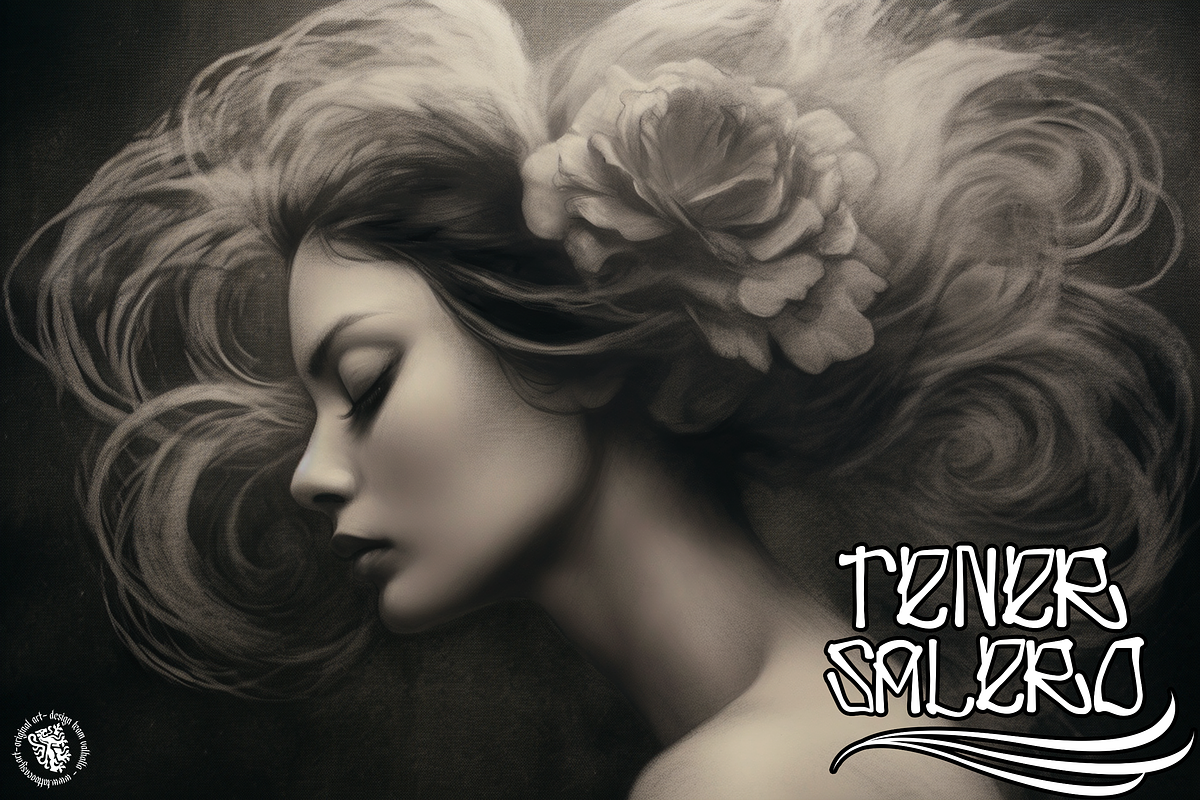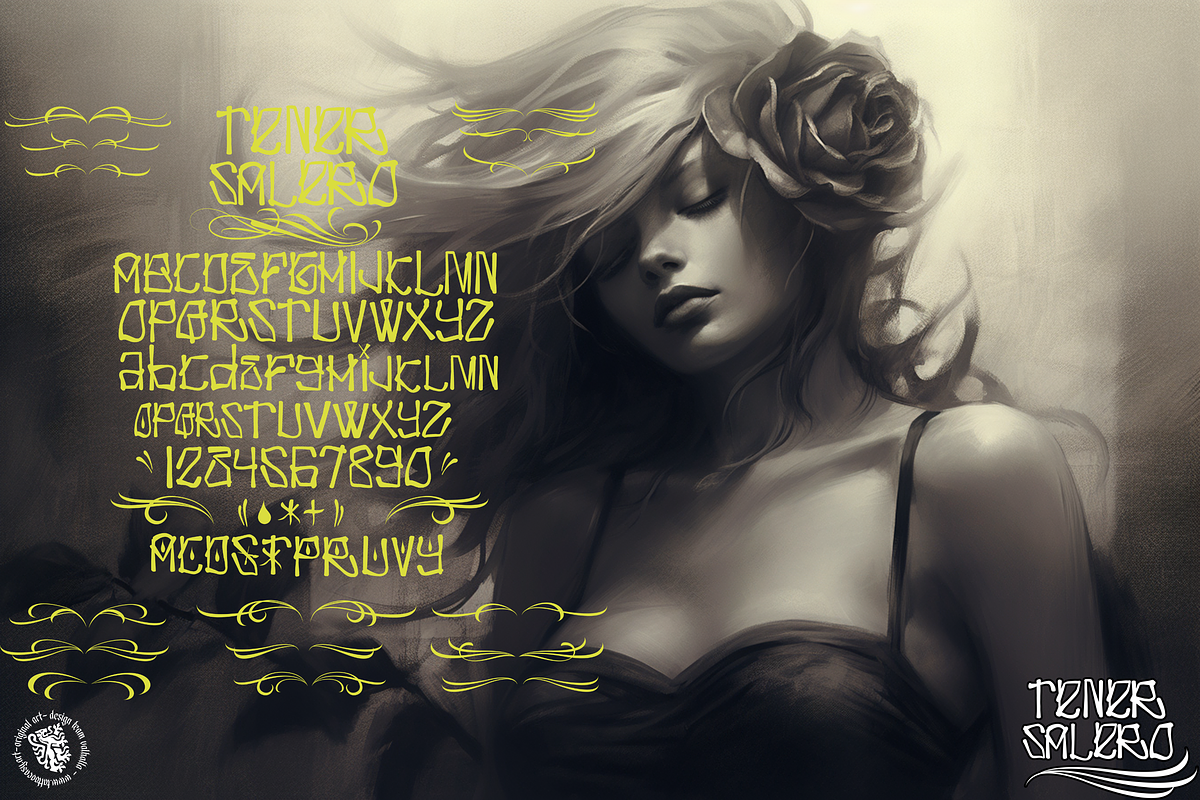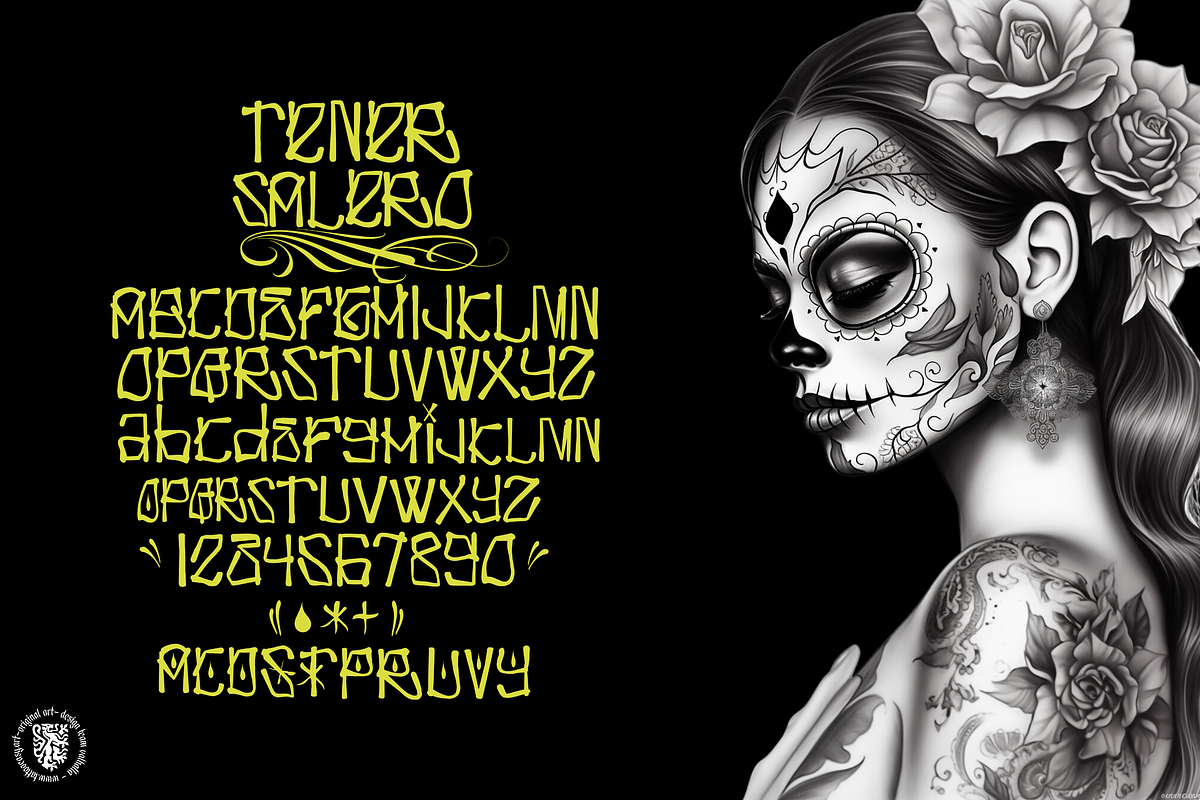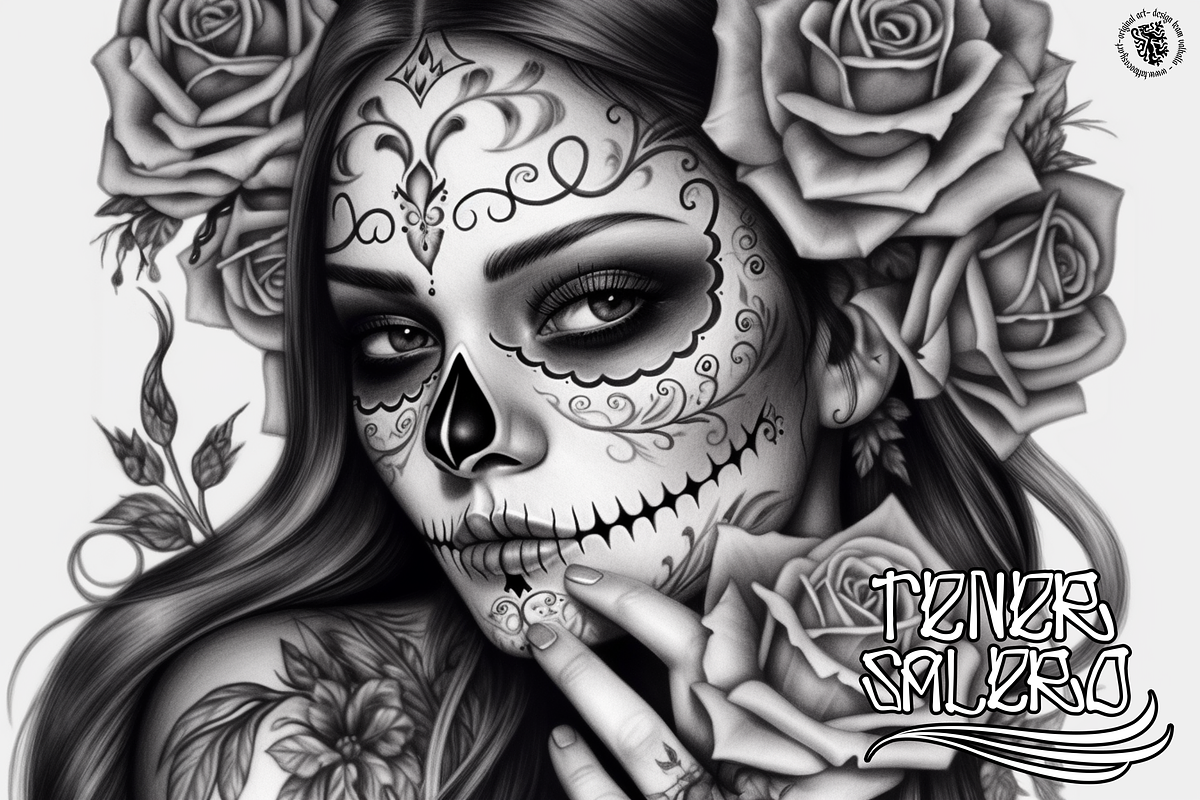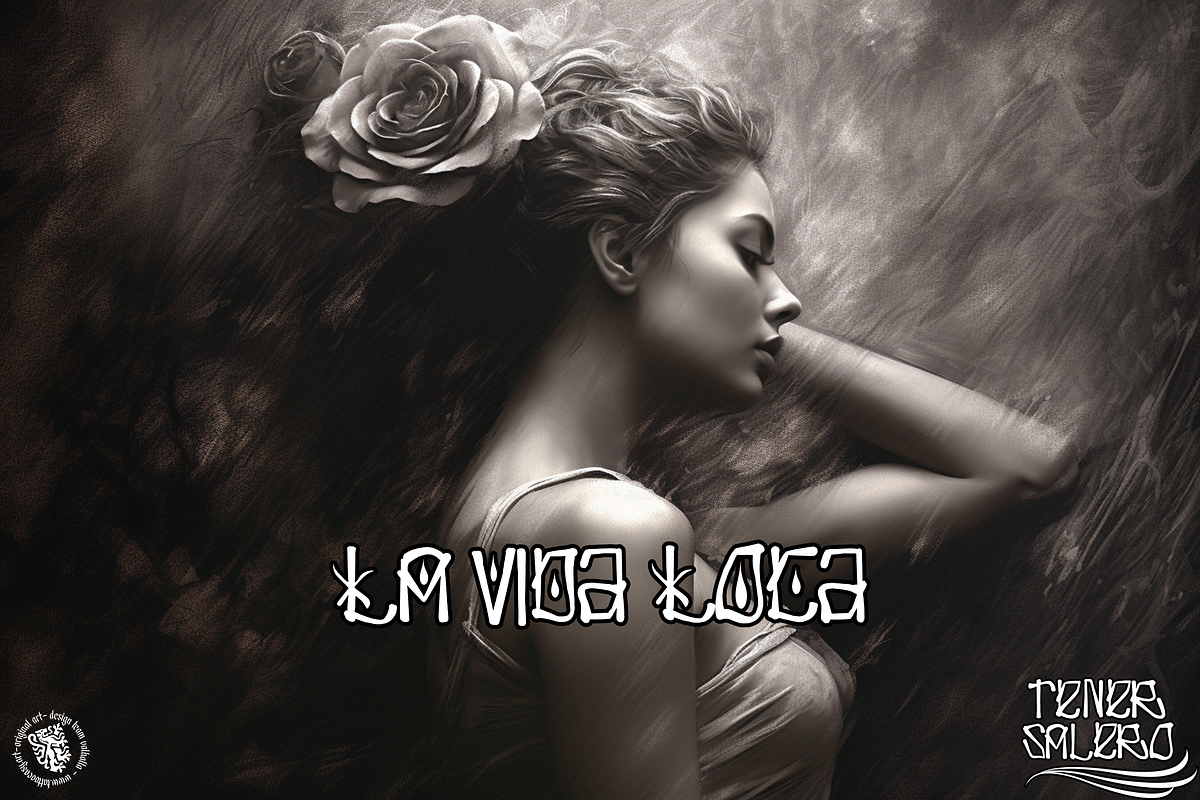
Tener Salero, custom tattoo letters
Handmade custom letters
a fun project from Design team Valhalla, meant to be used as an all caps font but made some small letters, alternatives, swashes and stuff that i included also, i hope that you will like them! 🙏❤️